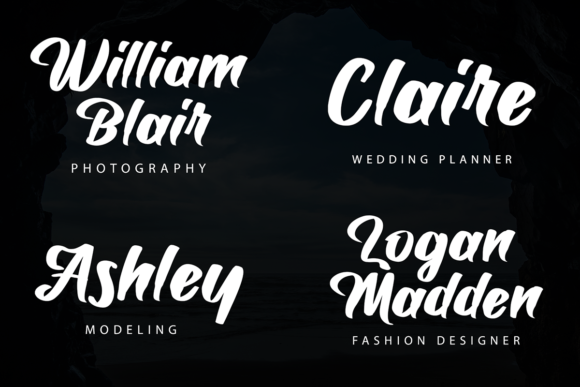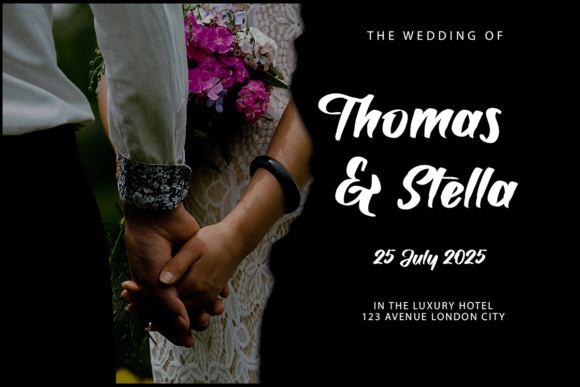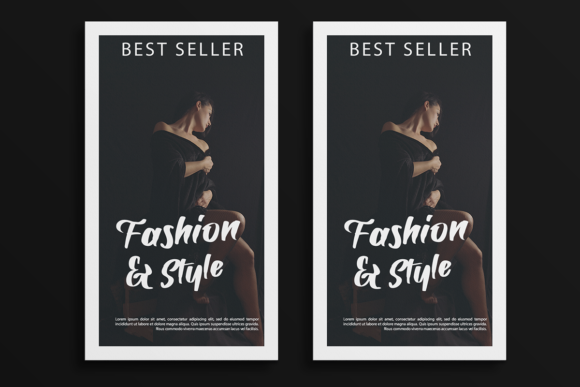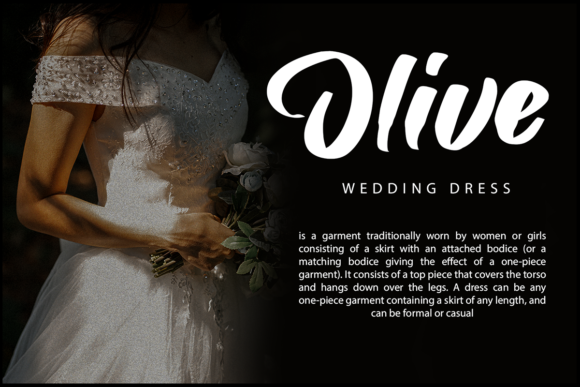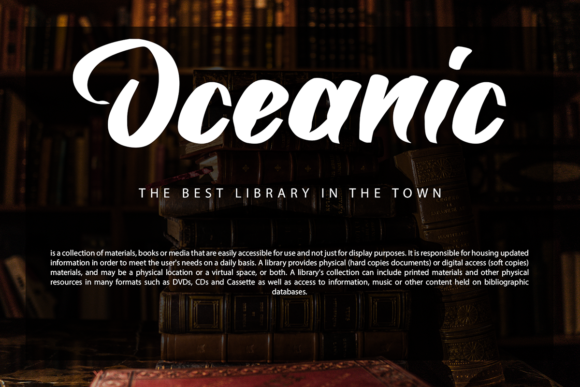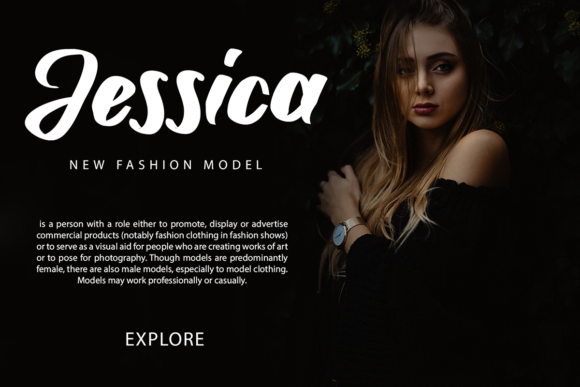
The Designer’s Delight: Uncovering the Beauty of Bottom Rock Font
I’ll never forget the time I was working on a branding project for a trendy new coffee shop. My client was specific about wanting a logo that exuded warmth, friendliness, and a touch of playfulness. As I scrolled through my font library, I stumbled upon Bottom Rock Font – and it was love at first sight! ✨ The bold, beautiful handwritten style instantly resonated with the vibe I wanted to create. In this article, I’ll share my experience with Bottom Rock Font, its features, and how to make the most of it in your designs.
An Honest Review: The Good and the Quirky
• ✨ Multilingual features: Bottom Rock Font supports multiple languages, making it perfect for global brands or projects with diverse audiences.
• ✅ Style variations: The font offers a range of stylistic alternates, allowing you to experiment with different looks and feels.
• 💫 Handwritten charm: The font’s handwritten style adds a touch of warmth and personality to any design.
• 🔥 Bold and eye-catching: Bottom Rock Font is perfect for making a statement with your brand or project.
• 🤔 Glyph limitations: While the font has a great range of characters, some users might find the glyph selection limited for certain languages or special characters.
• ⚠️ OpenType feature compatibility: Some platforms or software might not support the font’s advanced OpenType features, which could affect the overall design.
The Story Behind Bottom Rock Font
Imagine a young designer, inspired by the rugged beauty of the ocean, creating a font that captures the essence of the sea’s powerful waves. This is the story behind Bottom Rock Font. The designer aimed to craft a font that would evoke the feeling of being on the coast, surrounded by the sound of the waves and the smell of saltwater. The result is a bold, beautiful handwritten font that exudes a sense of adventure and freedom.
Font Name Bottom Rock Font
Q: What type of projects is Bottom Rock Font best suited for?
A: Bottom Rock Font is perfect for branding, invitations, greeting cards, and any creative project that requires a bold, eye-catching font.
Q: Does Bottom Rock Font support multilingual characters?
A: Yes, Bottom Rock Font features multilingual support, making it suitable for global brands or projects with diverse audiences.